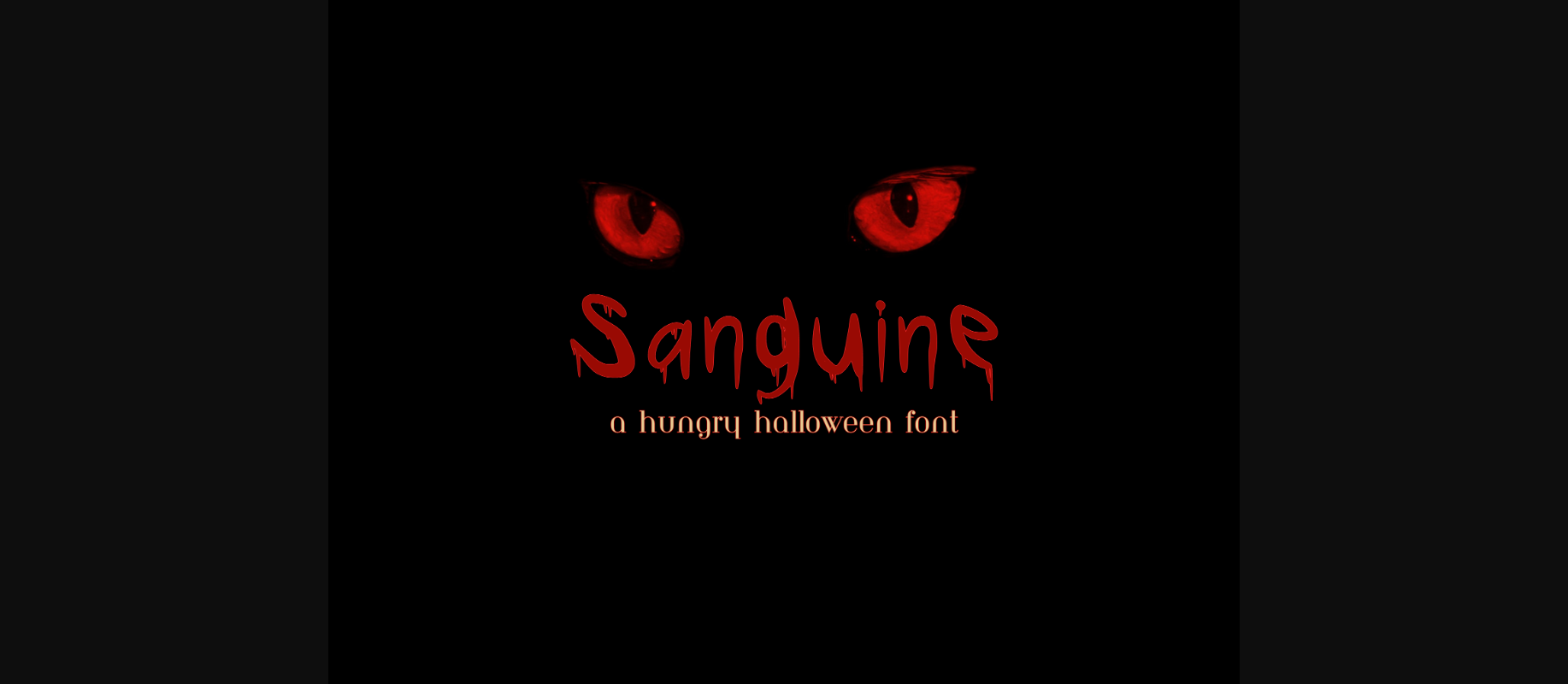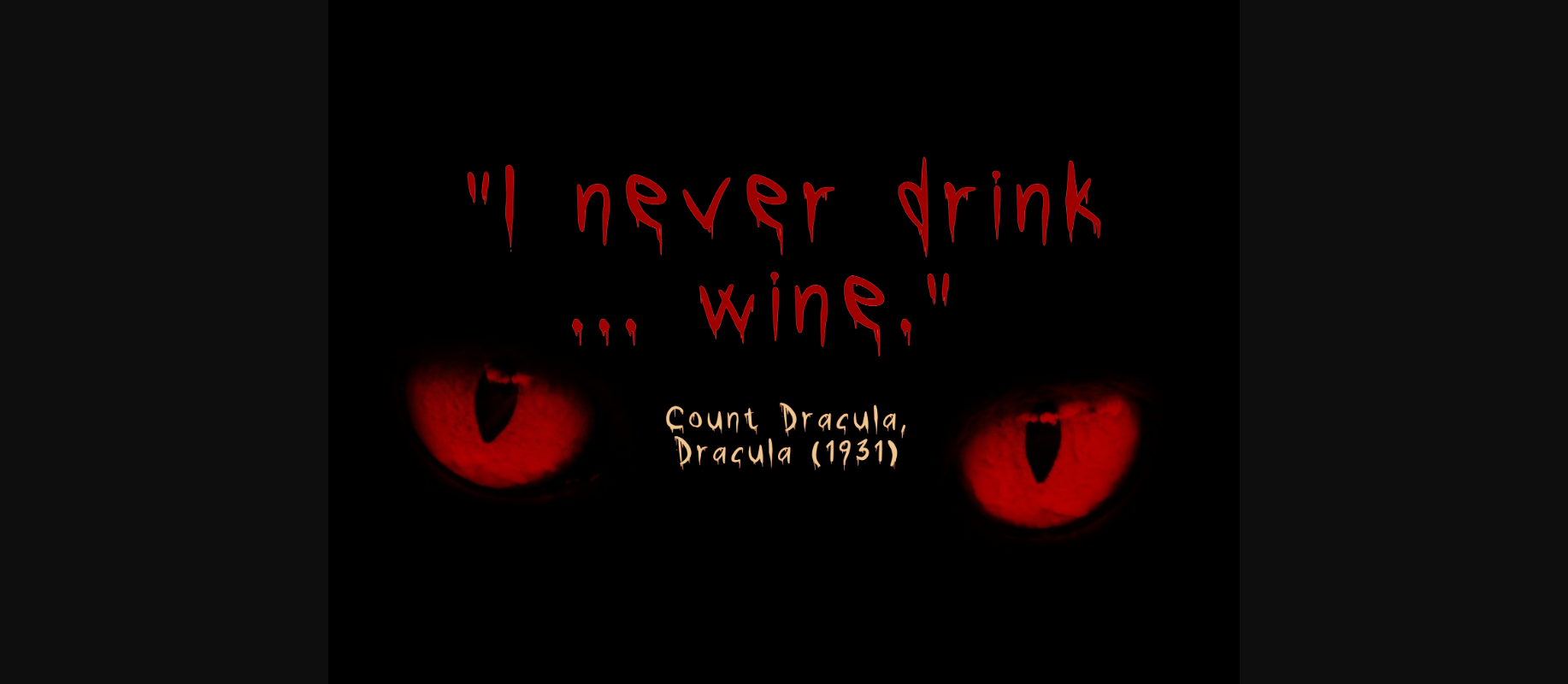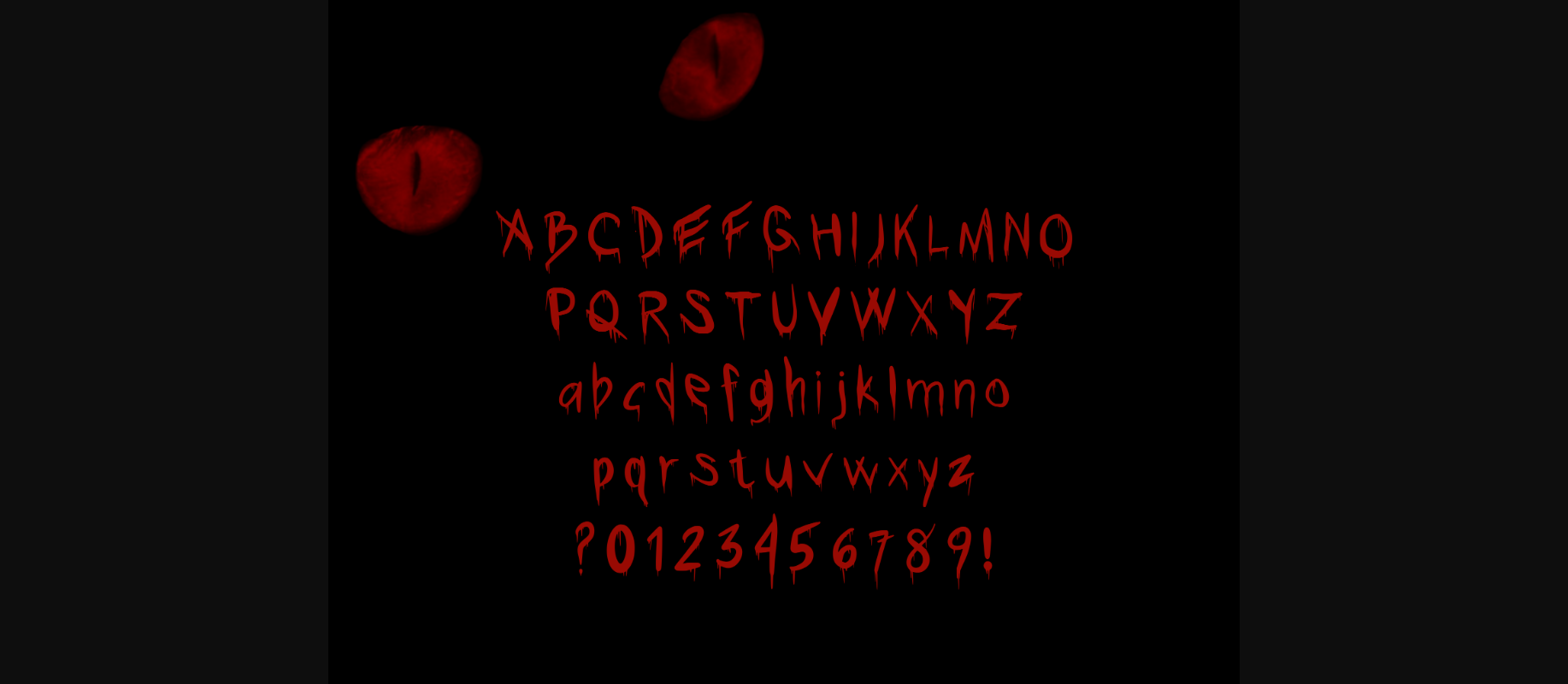
Sanguine Font
? Unleash the shivers with my new hand drawn font: Sanguine!
?‍♂️ A Frighteningly Unique Typeface
With letters that seem to drip, our Sanguine font is tailor-made for all your spooky and suspenseful design endeavors.
? Perfect for Spine-Chilling Creations
Whether you’re conjuring up chilling party invitations, crafting haunting posters, or adding a spine-tingling touch to your haunted house décor, the Sanguine font delivers a quirky charm to your design.